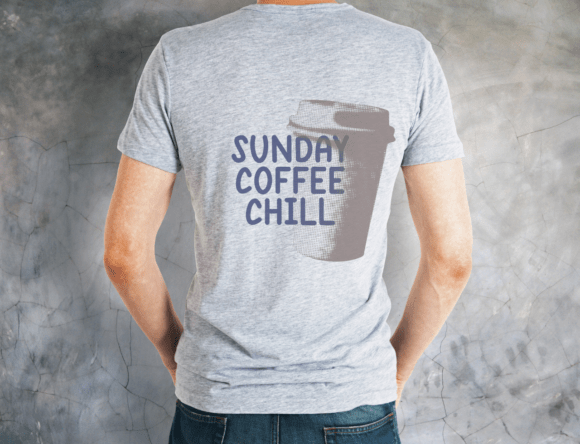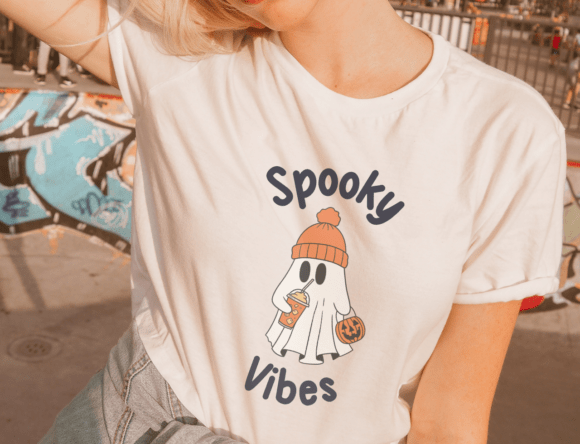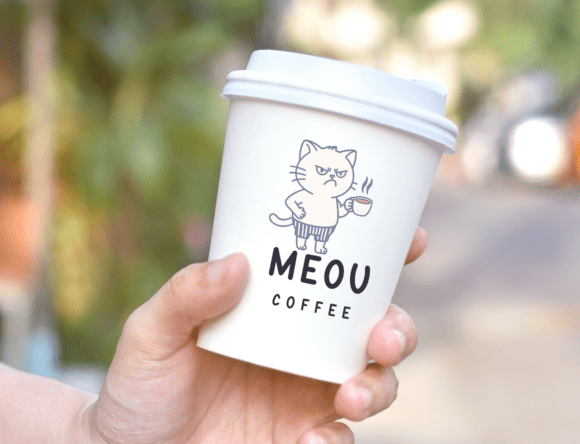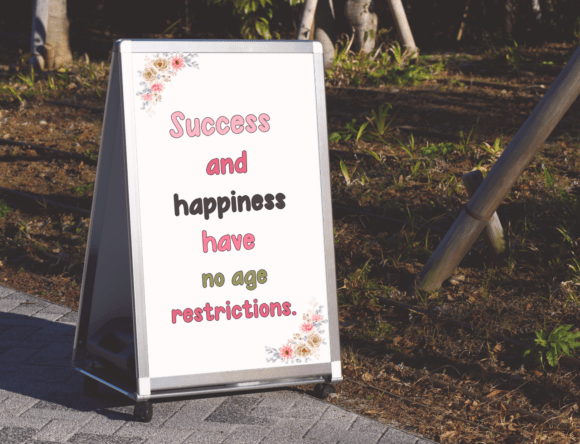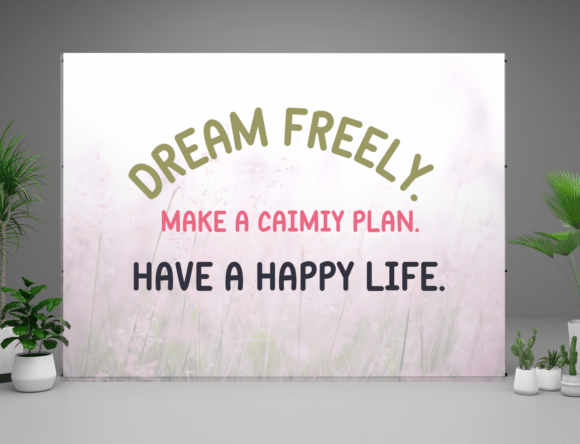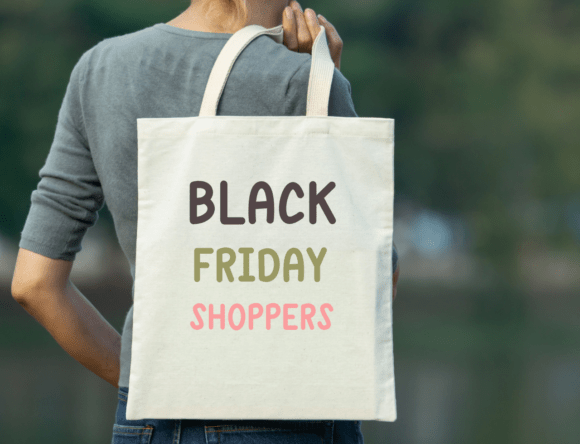
Introduction to Nailatar Font
As a designer, there’s nothing quite like the rush of inspiration that hits when you stumble upon the perfect font for your next creative project. For many of us, that moment of excitement is what drives us to push the boundaries of our art and bring our ideas to life. And that’s exactly what the Nailatar Font promises to deliver – a unique and versatile design resource that will elevate your typography game and leave a lasting impression on your audience.
With its high-quality, transparent background design, the Nailatar Font is the perfect choice for designers looking to add a touch of elegance and sophistication to their work. Whether you’re working on a logo, a greeting card, or a wedding invitation, this font is sure to bring a level of creativity and flair that will set you apart from the rest. And the best part? It’s available for free download, making it an accessible and valuable addition to any designer’s toolkit.
Key Features of Nailatar Font
- High-quality design resource with a unique, creative style perfect for various projects.
- Comes with a transparent background, allowing for seamless integration into any design project.
- Designed with a high resolution of 300 DPI for crisp and clear text rendering.
- Supports a wide range of languages, making it a versatile font for global creative projects.
- Includes a comprehensive set of glyphs and characters, ideal for designers working on complex, creative projects.
Honest Review: Nailatar Font
I recently had the opportunity to work with the Nailatar Font, and I must say, it’s been a game-changer for my design projects. This font is perfect for those looking for a unique, creative touch.
- ✨ High-quality design: The Nailatar Font is incredibly detailed and polished, making it a great addition to any design project.
- ✨ Versatile: This font can be used for a wide range of creative projects, from digital art to print design.
- ⚠️ Limited character set: While the font is beautiful, it’s not as extensive as some other options on the market.
- ⚠️ Not ideal for large blocks of text: The Nailatar Font is best used for short phrases or titles, as it can become overwhelming when used for large amounts of text.
Overall, I’m impressed with the Nailatar Font. Its unique design and high-quality aesthetic make it a valuable resource for designers. While it may have some limitations, I believe it’s well worth the free download. I’ll definitely be using it for future creative projects.
Nailatar Font
The Nailatar Font is a high-quality design resource perfect for creative projects that require a unique touch. With a transparent background, it’s easy to integrate into your design without any distractions.
To get the most out of the Nailatar Font, experiment with different font sizes, colors, and styles to create a unique look for your design. You can also combine it with other design elements, such as images or shapes, to add visual interest.
The Nailatar Font is perfect for a variety of creative projects, including logos, social media graphics, and advertising materials. It’s also great for personal projects, such as blog posts, newsletters, and invitations.
Alternatives to Nailatar Font
Alegreya is a high-quality serif font designed for use in a variety of creative projects, including books, magazines, and websites. Its elegant and refined design makes it perfect for formal and professional designs. When to use: formal invitations, luxury branding, and high-end publications. Compared to Nailatar Font, Alegreya has a more classical and sophisticated feel, while Nailatar Font has a more playful and modern vibe.
Lato is a modern sans-serif font that is ideal for use in digital design, including websites, apps, and social media. Its clean and minimalist design makes it perfect for creative projects that require a transparent background and a touch of sophistication. When to use: digital products, tech branding, and modern websites. Compared to Nailatar Font, Lato has a more minimalist and sleek design, while Nailatar Font has a more decorative and ornate feel.